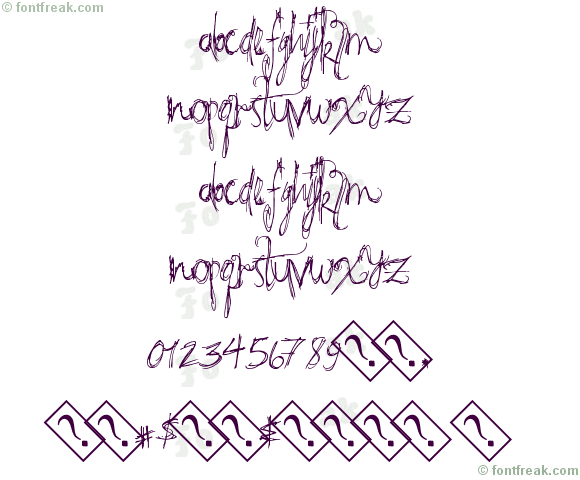
PenWar
PenWar by Xerographer Fonts is a captivating script font that embodies the charm of handwritten typography. Released in 2012, this freeware font showcases a delicate and flowing design, characterized by its extra-fine strokes that add a touch of elegance to any text. The contrast in stroke weight gives it a lightweight and airy feel, while the ample spacing enhances its readability, making it suitable for various applications.
The visual characteristics of PenWar include fluid curves and whimsical flourishes that provide an artistic flair, making it perfect for creative projects. Its decorative elements evoke a sense of personal touch, ideal for conveying warmth and intimacy. This font shines in use cases such as wedding invitations, where its graceful lines can beautifully complement romantic themes. It also works wonderfully for restaurant menus, adding a sophisticated touch that elevates the dining experience. Additionally, PenWar is an excellent choice for greeting cards and social media graphics, allowing content creators to craft messages that feel personal and inviting.
Targeted primarily at graphic designers, small business owners, and content creators, PenWar offers versatility across various design contexts. Its unique style appeals to those looking to make a memorable impact with their visual communications.
What sets PenWar apart is its ability to fuse elegance with approachability. This font stands out for its perfect balance of artistry and functionality, ensuring that it not only looks beautiful but is also practical for everyday use. Whether you’re crafting a heartfelt invitation or designing a stunning promotional piece, PenWar font free download provides the ideal solution for those seeking to infuse their projects with a touch of handwritten charm.